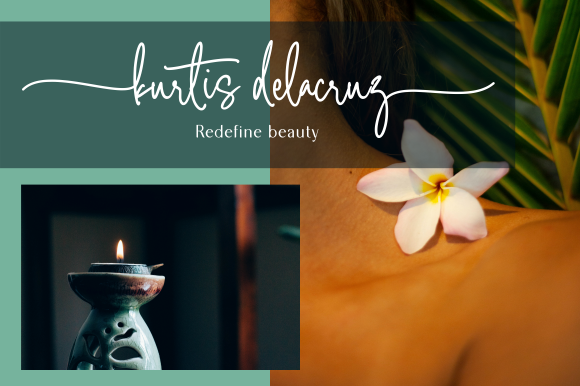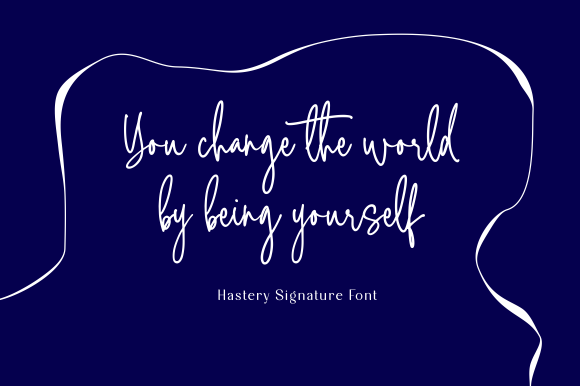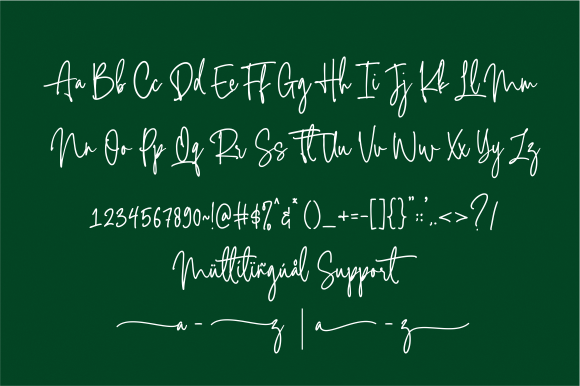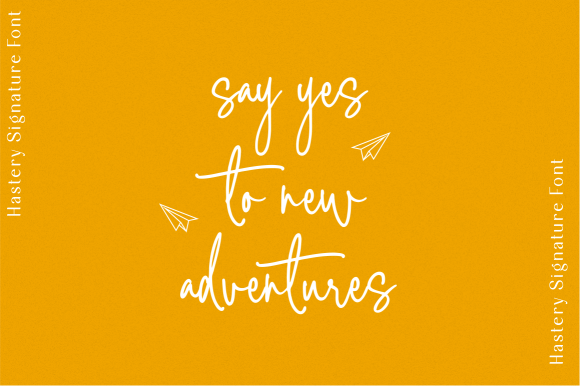
About Hastery Font
Hastery is a dazzling script font. This font is neatly crafted and highly detailed. Whatever the topic, this font will be a wonderful asset to your font library, as it has the potential to enhance any creation.